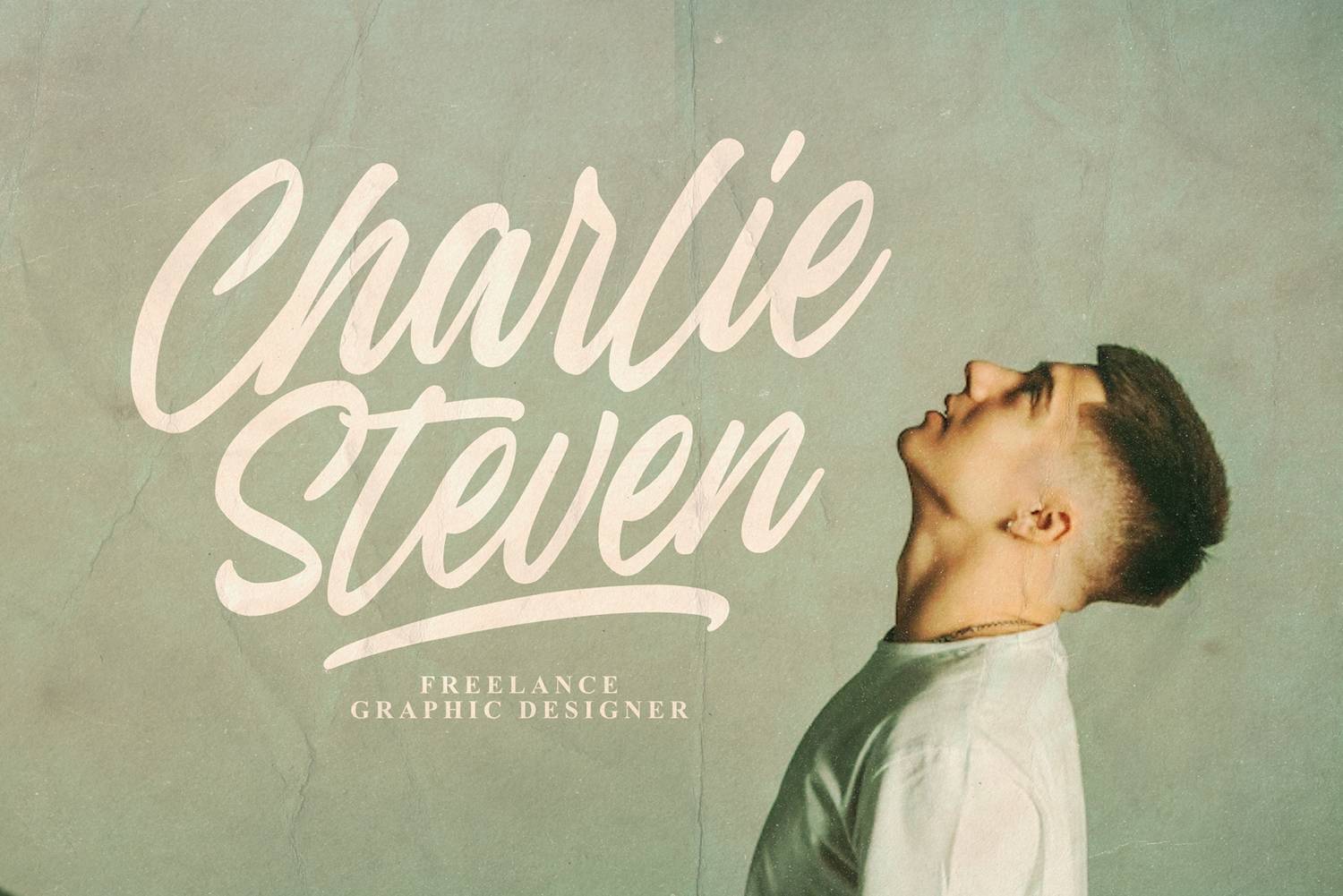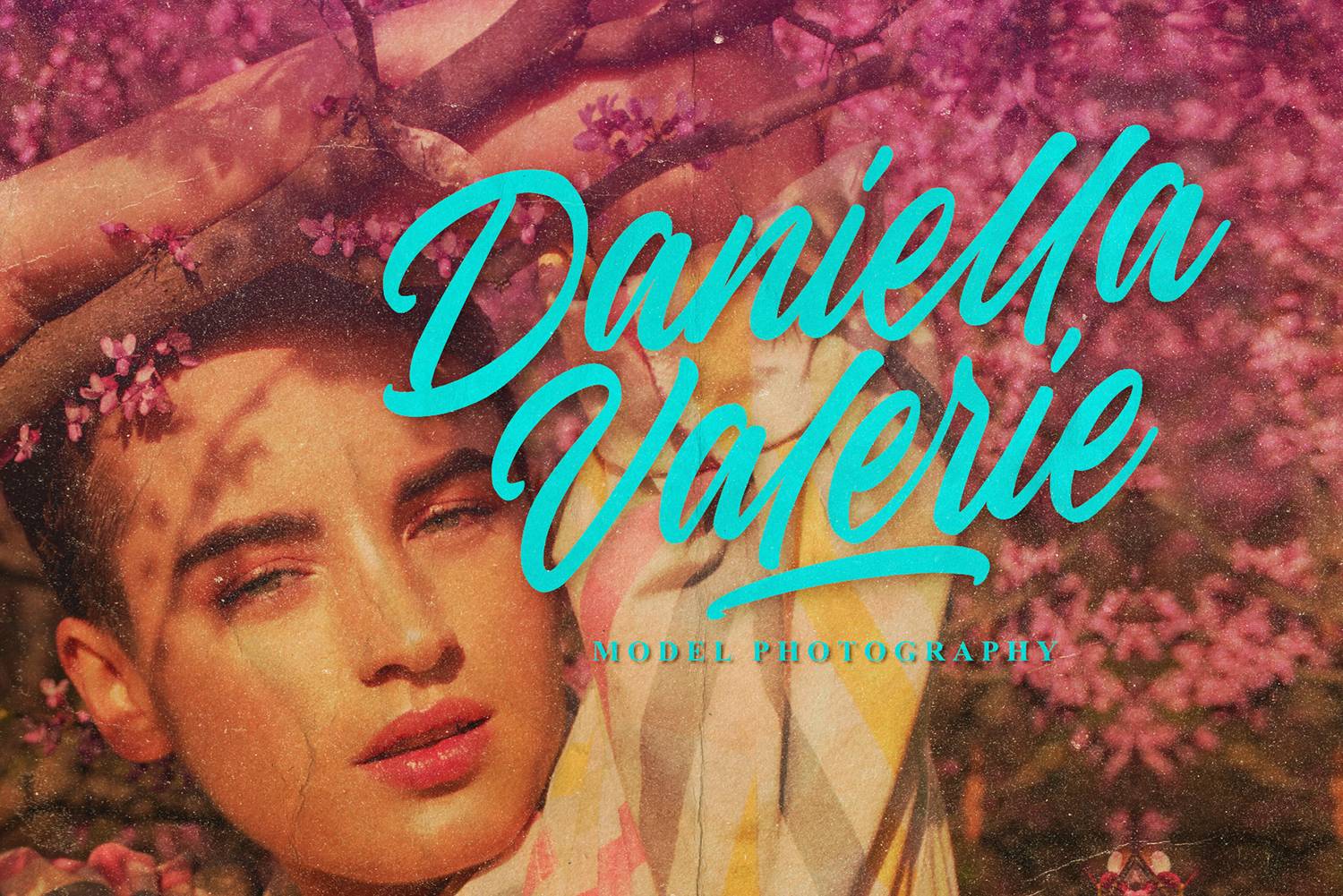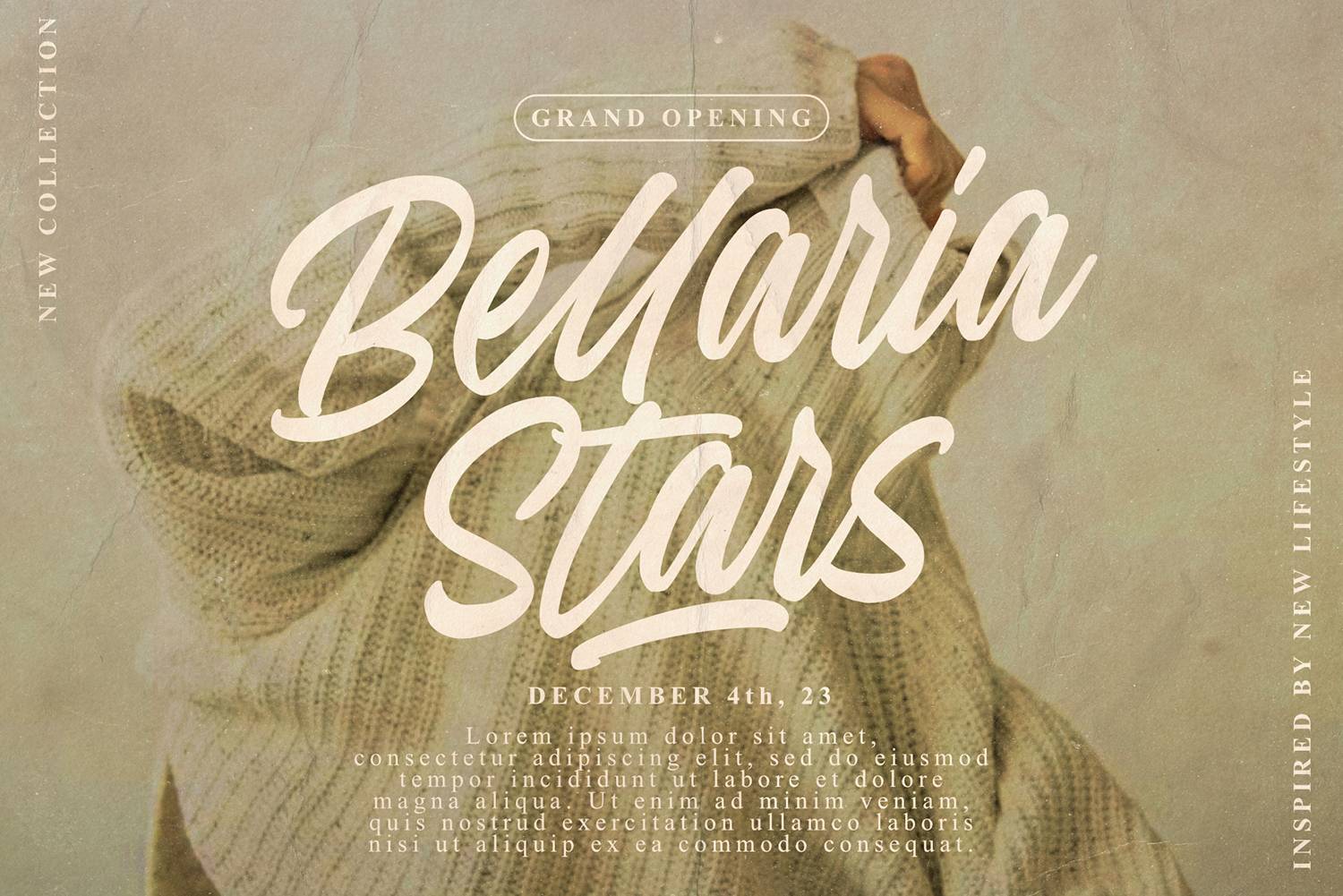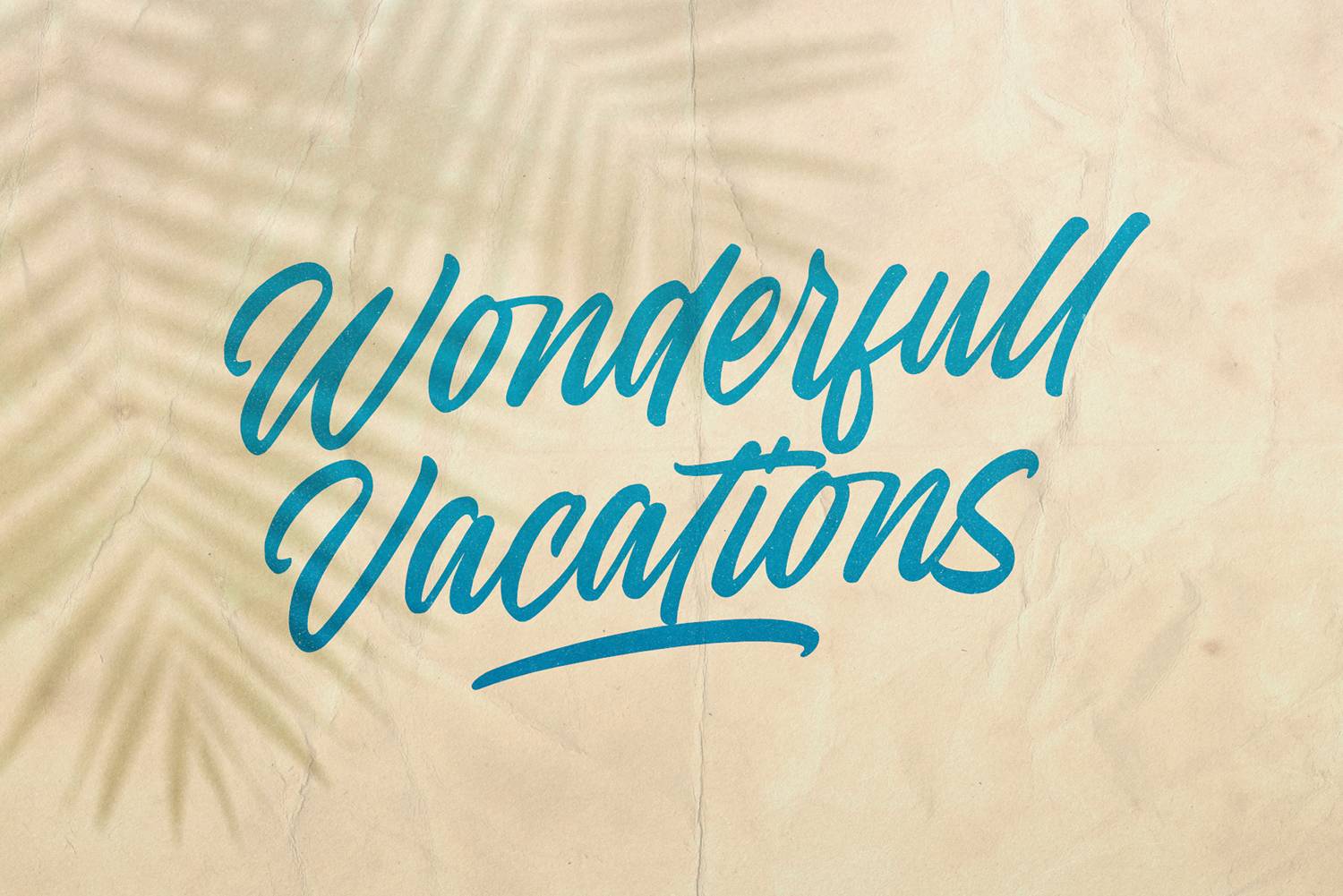
Brilliant Youth is a lively script font that features smooth, flowing strokes with a balanced weight and slight contrast, giving it an elegant yet friendly vibe. Its cursive letterforms are dynamic and expressive, making it a great choice for branding, invitations, and creative projects that want to convey youthful energy and charm. This font works well for headlines and logos where a personal, handwritten touch is desired.
Brilliant Youth Font
About Brilliant Youth Font